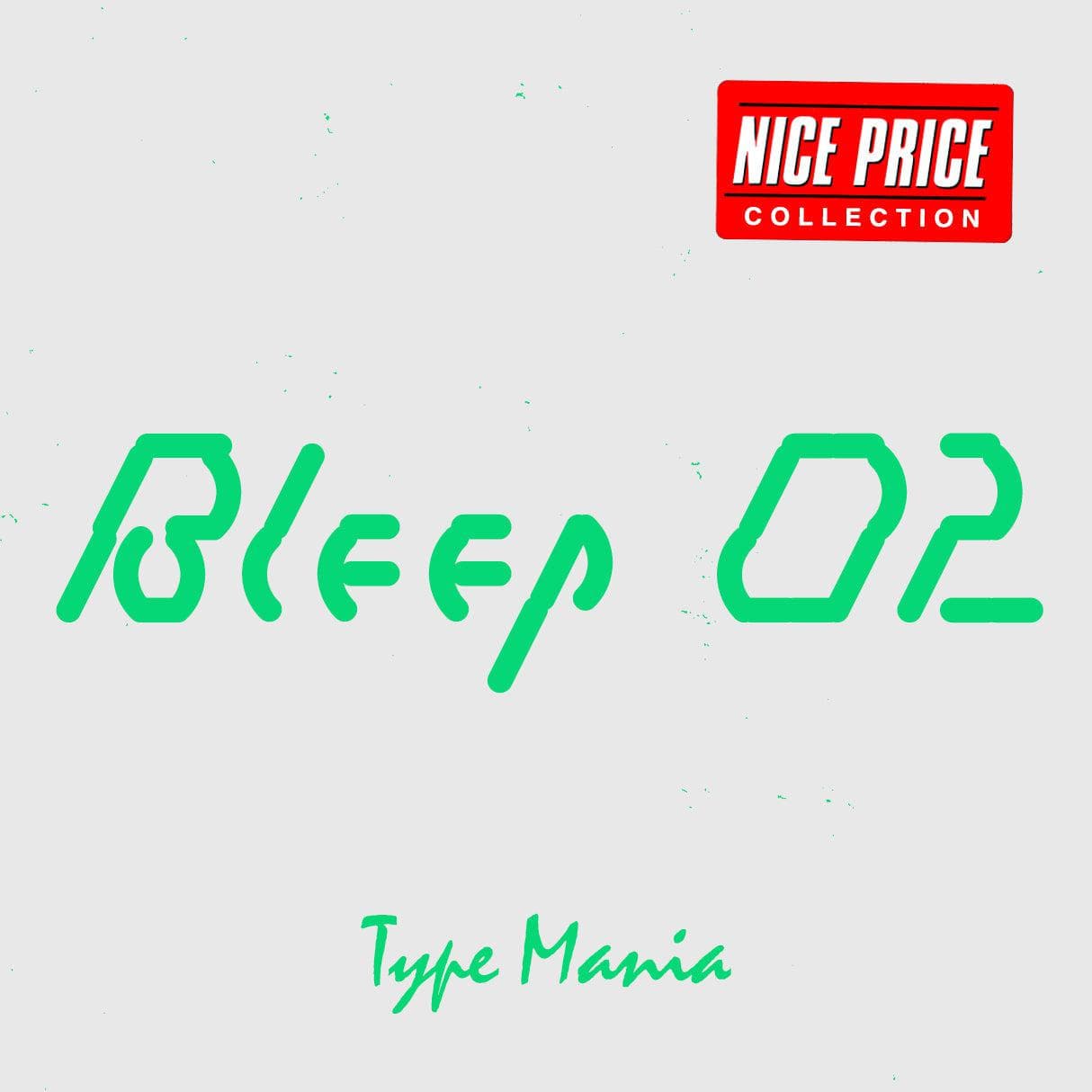
<p>The sister of Bleep 01 TM, <strong>Bleep 02 TM</strong> brings the same experimental cozy vibes, but in <em>italic</em>. Whether you are a designer, developer, or digital artist, <strong>Bleep 02 TM</strong> offers a unique mix of modern aesthetics and cozy retro feels, perfect for projects that call for a distinctive visual identity 🤌🤌</p> <p><strong>Zip includes</strong></p> <ul> <li>OTF file</li> <li>TTF file</li> <li>WOFF2 file</li> </ul> <p><strong>Languages</strong></p> <ul> <li>Basic Latin</li> <li>Western European</li> <li>Euro</li> <li>Central European</li> <li>Pan African Latin</li> </ul> <p><em>Graphic Design is Easy (with Type Mania)®</em></p>